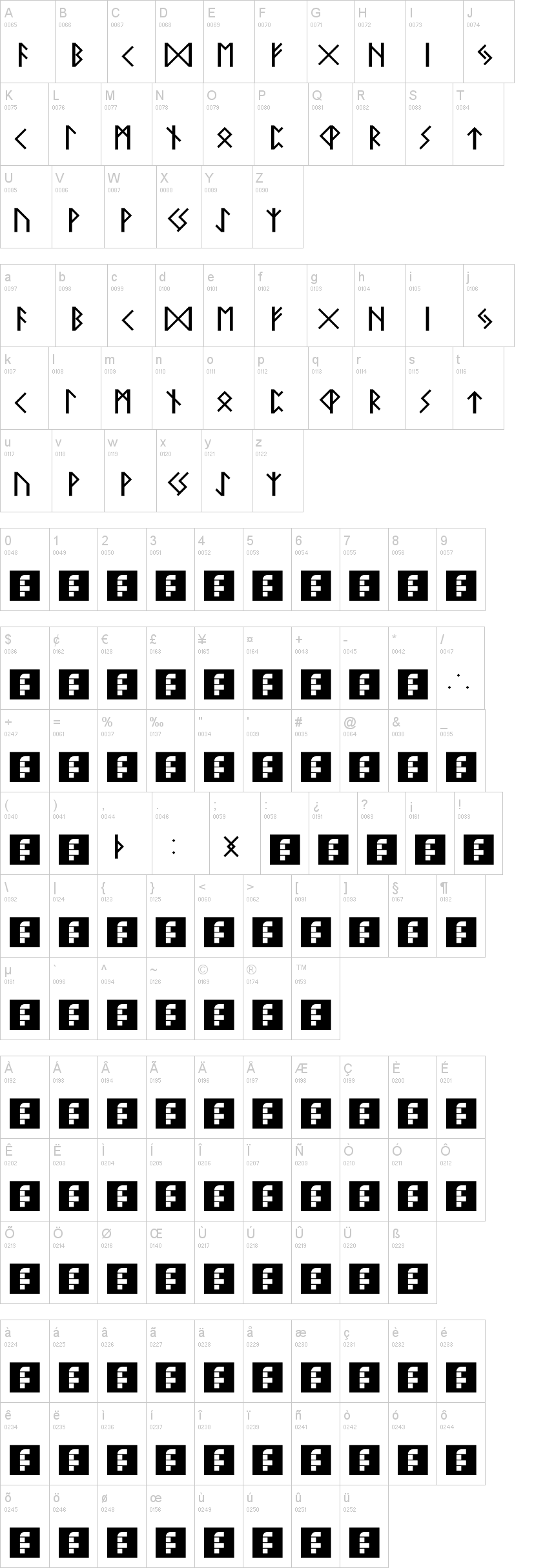
Note of the authorI created this font because I couldn't find an Elder Futhark Rune font that had all the features I desired.
The letters X and Q are not originally part of Elder Futhark so I added bindrunes for these letters that approximate their sounds. The NG and TH Runes are the ; and , keys respectively. The Spacebar creates a single dot that separates words, the Period key creates a double dot that looks like a colon and separates sentences and the / key creates a triple dot that can be used to separate paragraphs or as a flourish on the sides of titles.